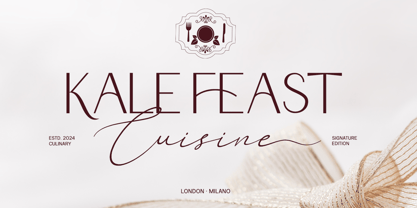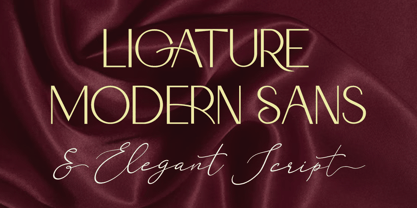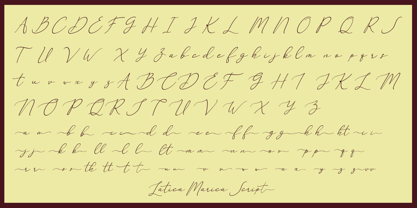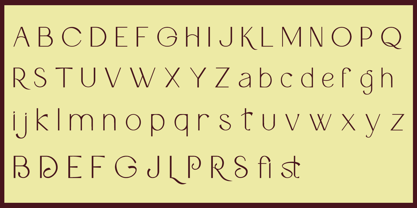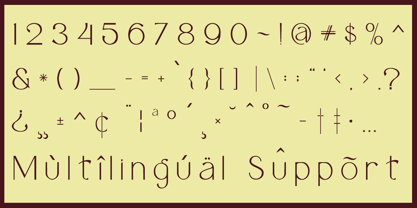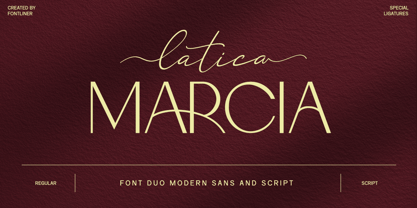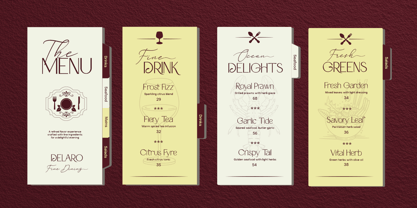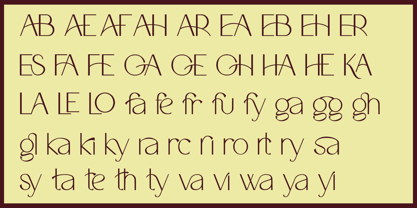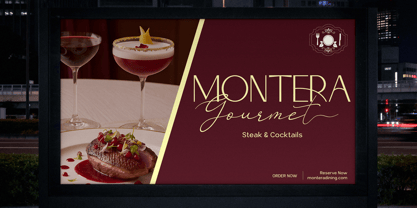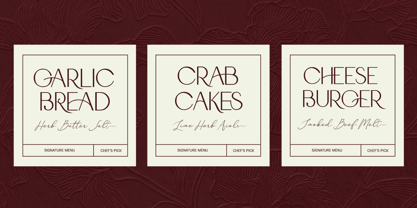
Latica Marcia Script
The Latica Marcia Script Font Family was designed by Ghina Luthfiarieska and published by Font Liner. Latica Marcia Script contains 2 styles and family package options. More about this family
Latica Marcia is a modern font duo that seamlessly blends a clean sans serif with an elegant handwritten script. This combination achieves a perfect balance between structure and expression—where the sans serif provides clarity and professionalism, while the script infuses a touch of personality and artistic flair. The flowing strokes and smooth curves of the script style impart a natural, signature-like feel to your designs. Designed for versatility, Latica Marcia is perfect for branding, logos, social media, wedding invitations, and lifestyle design projects. The additional ligatures enhance the script’s authenticity, enabling seamless letter connections and more natural typography compositions. Whether you're pursuing a modern minimal look or a romantic aesthetic, this duo adapts effortlessly. With its balanced contrast and stylish character, Latica Marcia empowers designers to create visually striking and emotionally engaging designs—making every project feel more refined, expressive, and memorable.